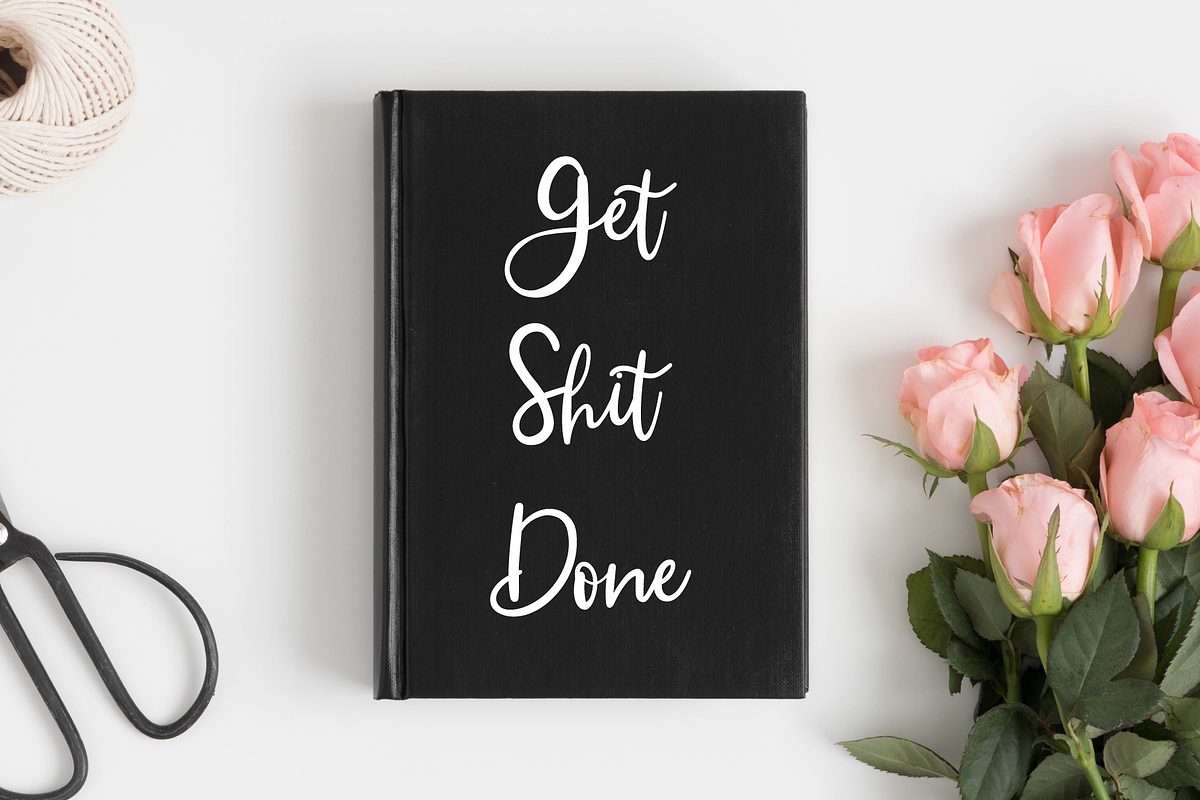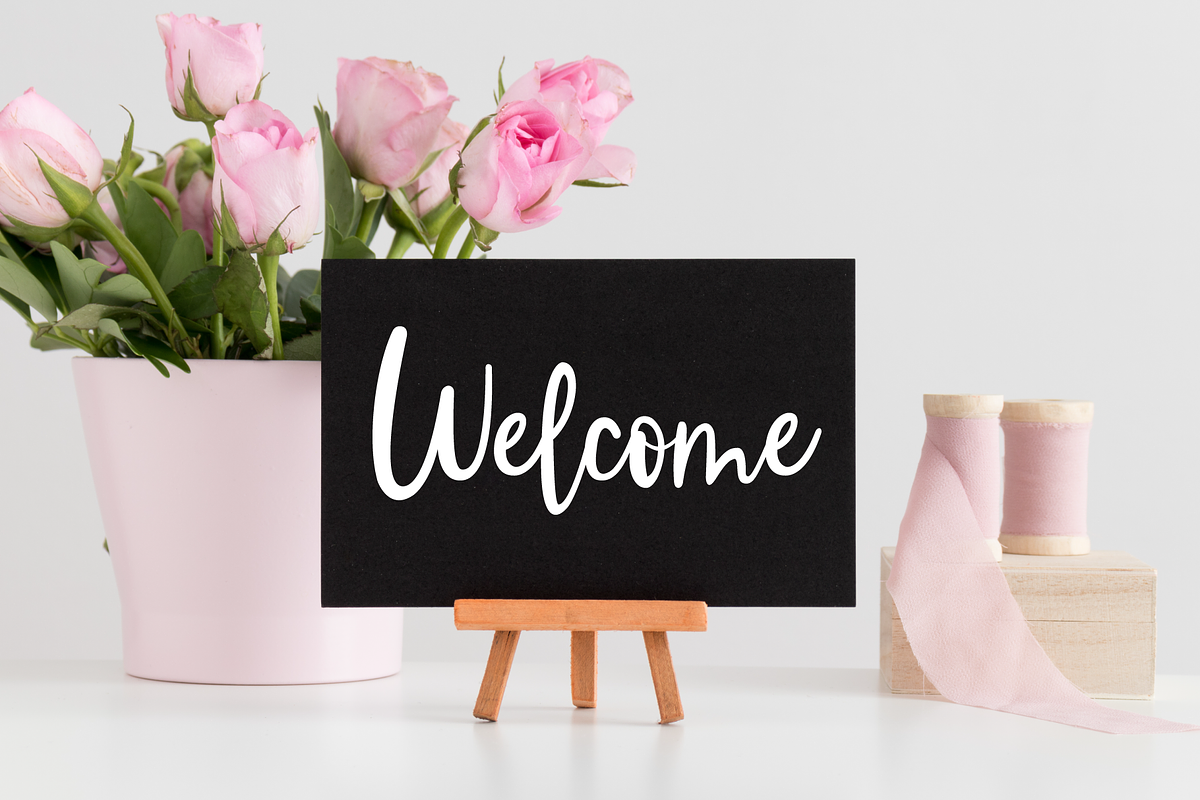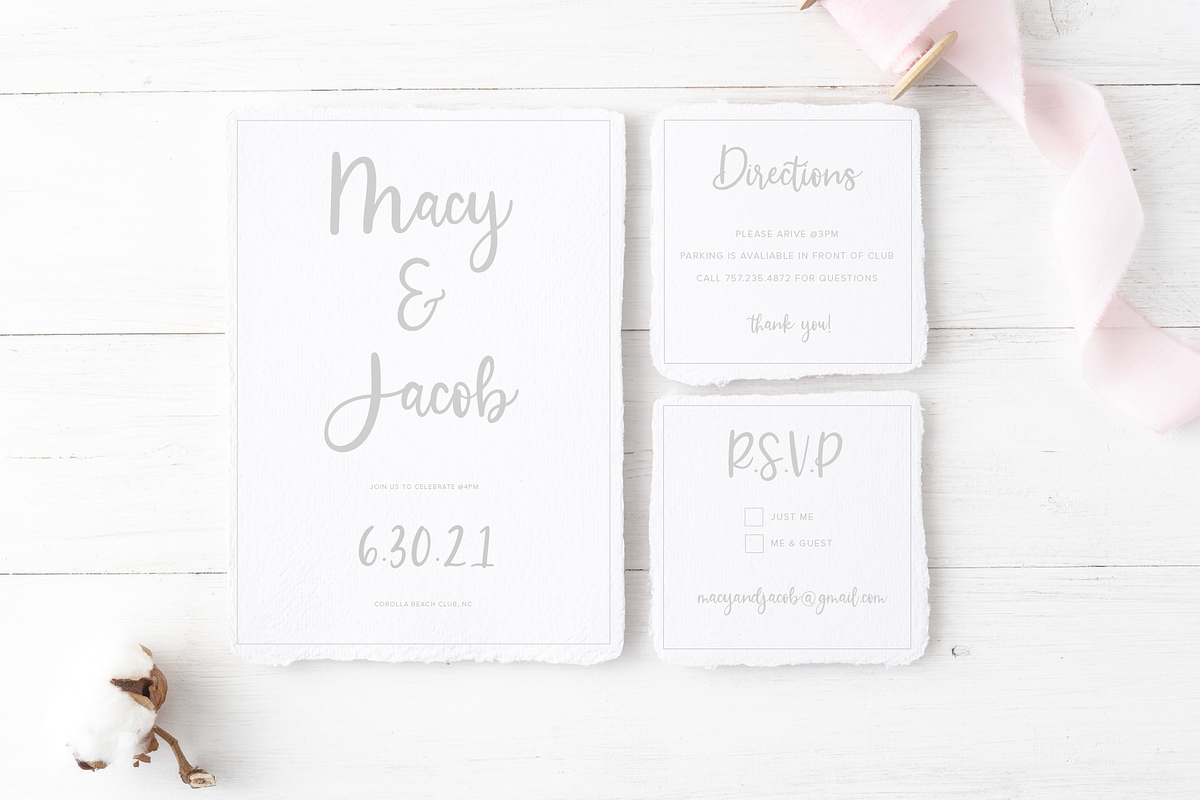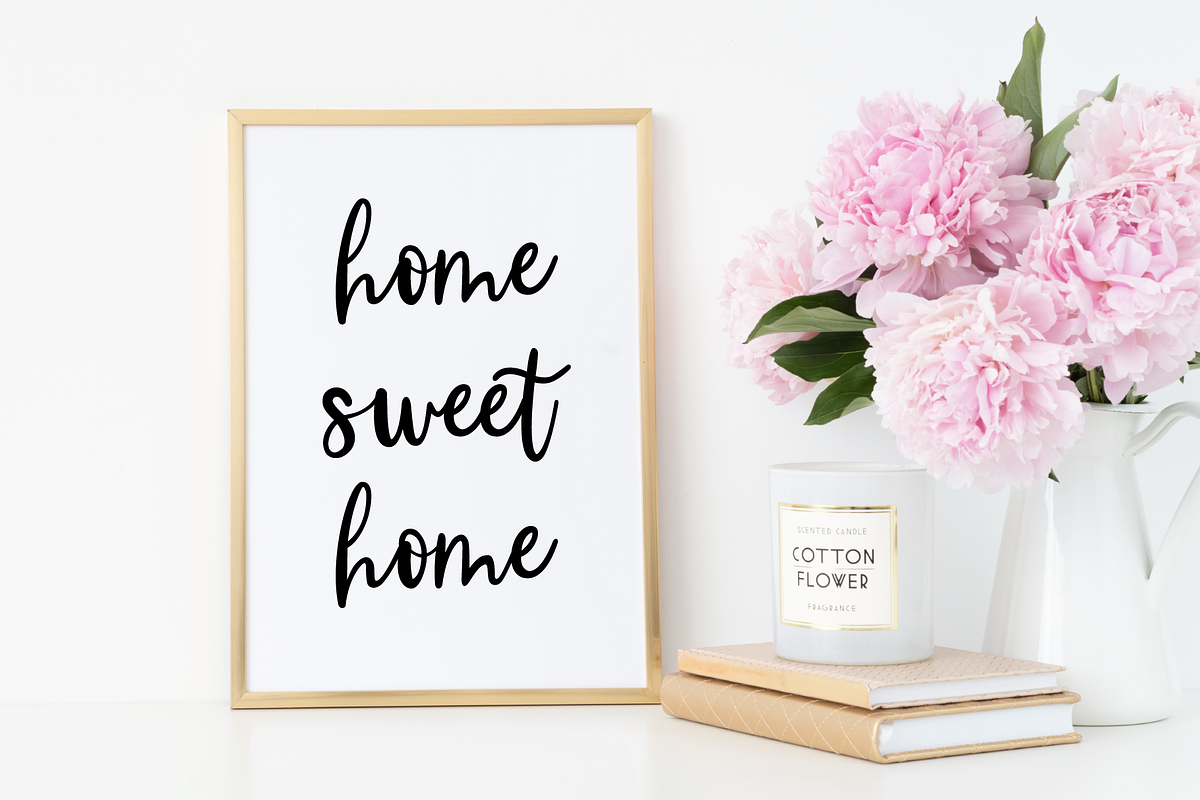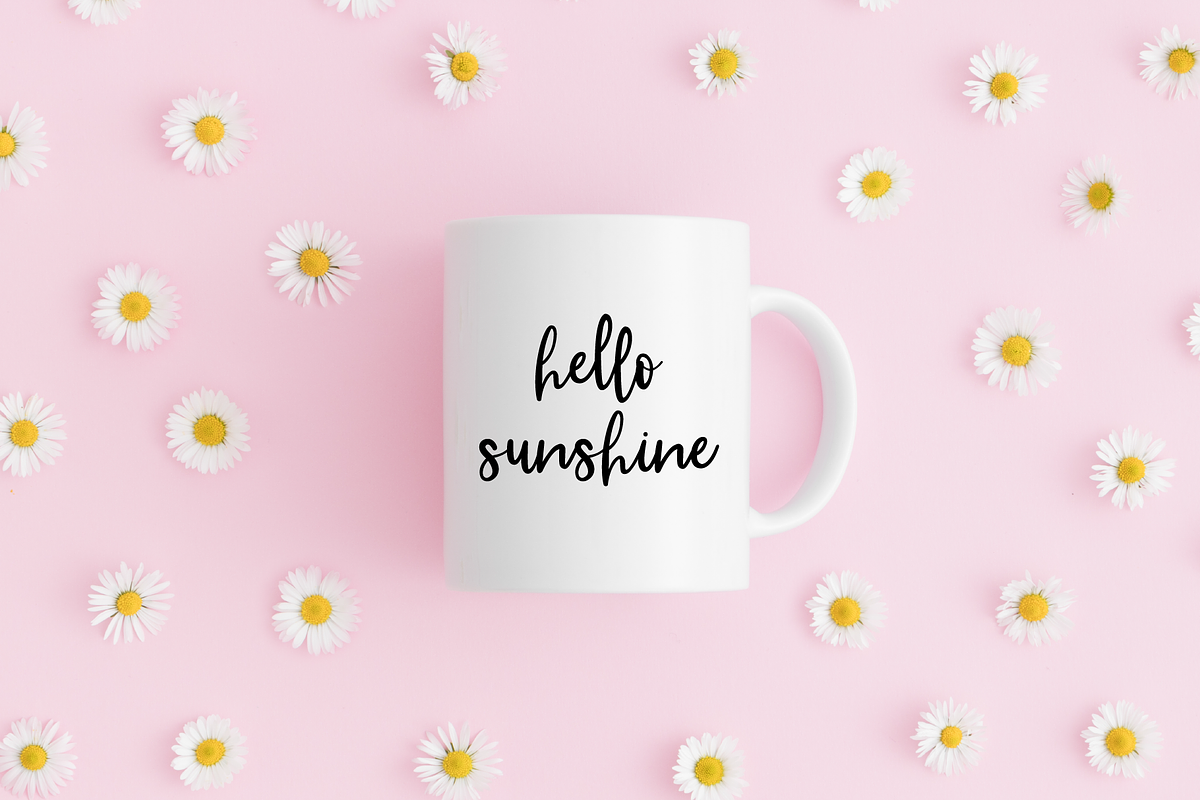
Courtney | Handwritten Script Font
Introducing my new multilingual brush pen font, Courtney Script. This whimsical hand-lettered font was inspired by my signature brush lettering design style. I hand drew this font from scratch just for you guys to help streamline your design process'. I think it's perfect for wedding invitations, DIY projects, bright and bold brand campaigns, and so much more!
Courtney Script works perfectly for magazine layouts, wedding invitations, DIY projects, and bright and bold brand campaigns!
Courtney Script has some coded features to give it a hand written feel:
- Courtney Script has some coded features to give it a hand written feel: Western European Multilingual Support Standard Ligatures Alternates